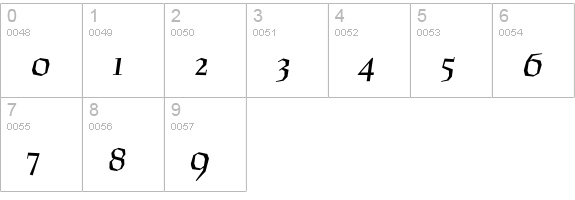
RuzenaAntikva-BoldItalic Font Details
RuzenaAntikva-BoldItalic is a striking and elegant font that exudes sophistication and style. Its bold and italic design gives it a unique and contemporary look, making it perfect for a variety of design projects. With its sharp angles and graceful curves, this font commands attention and adds a touch of luxury to any text. What sets RuzenaAntikva-BoldItalic apart is not only its stunning design but also the fact that it is available for free download at FontsMarket.com. This means that you can elevate your projects with this high-quality font without any cost, making it a valuable addition to your font collection. Whether you are designing a logo, creating a poster, or crafting a website, RuzenaAntikva-BoldItalic will bring a sense of sophistication and flair to your work. Download this font today and let its beauty and elegance enhance your designs.